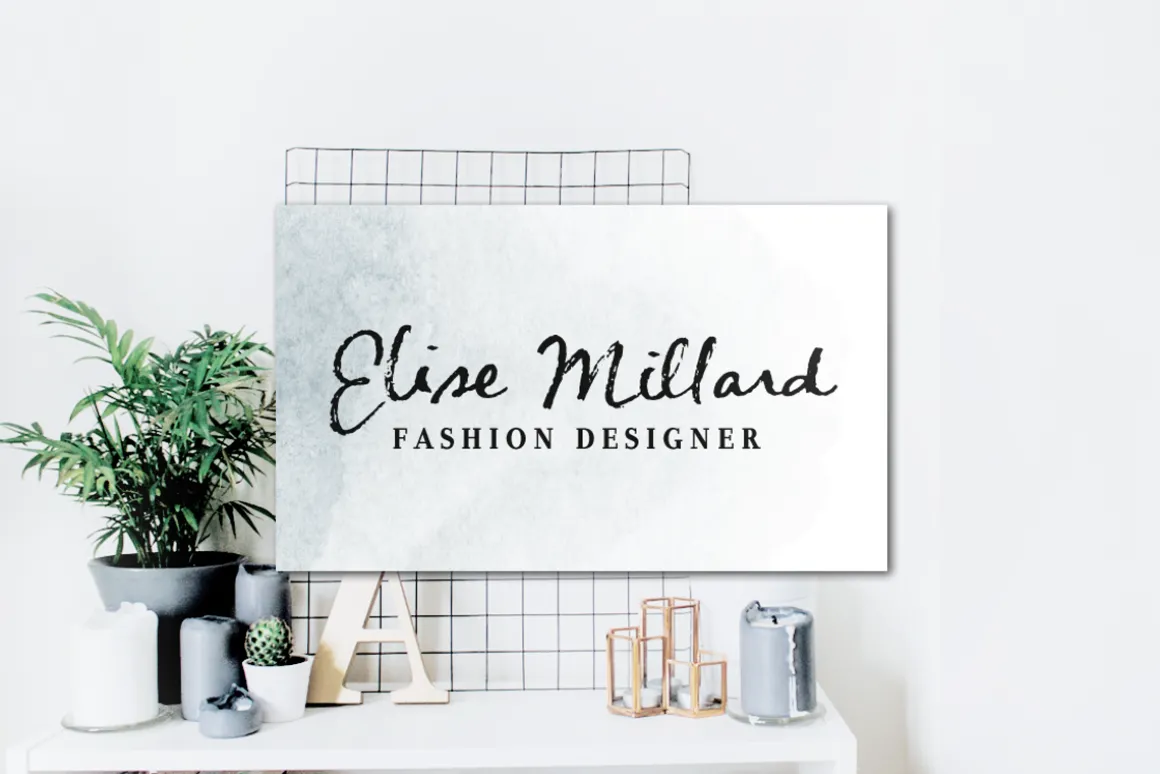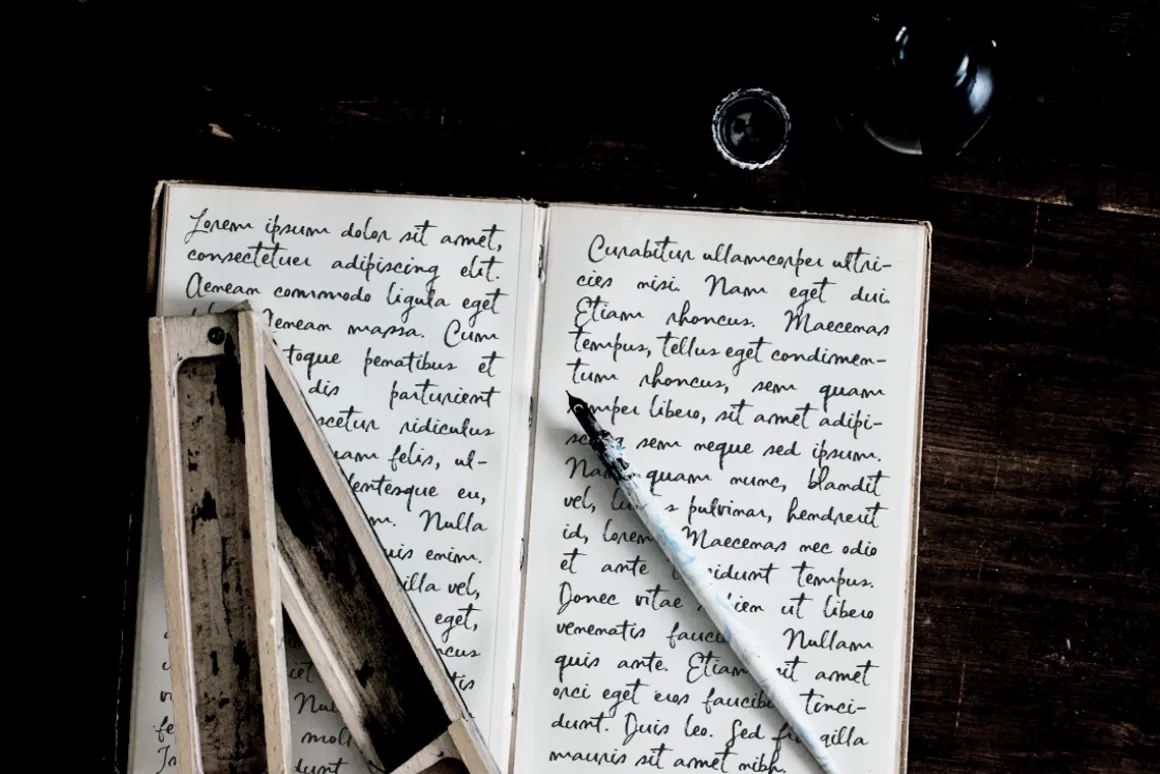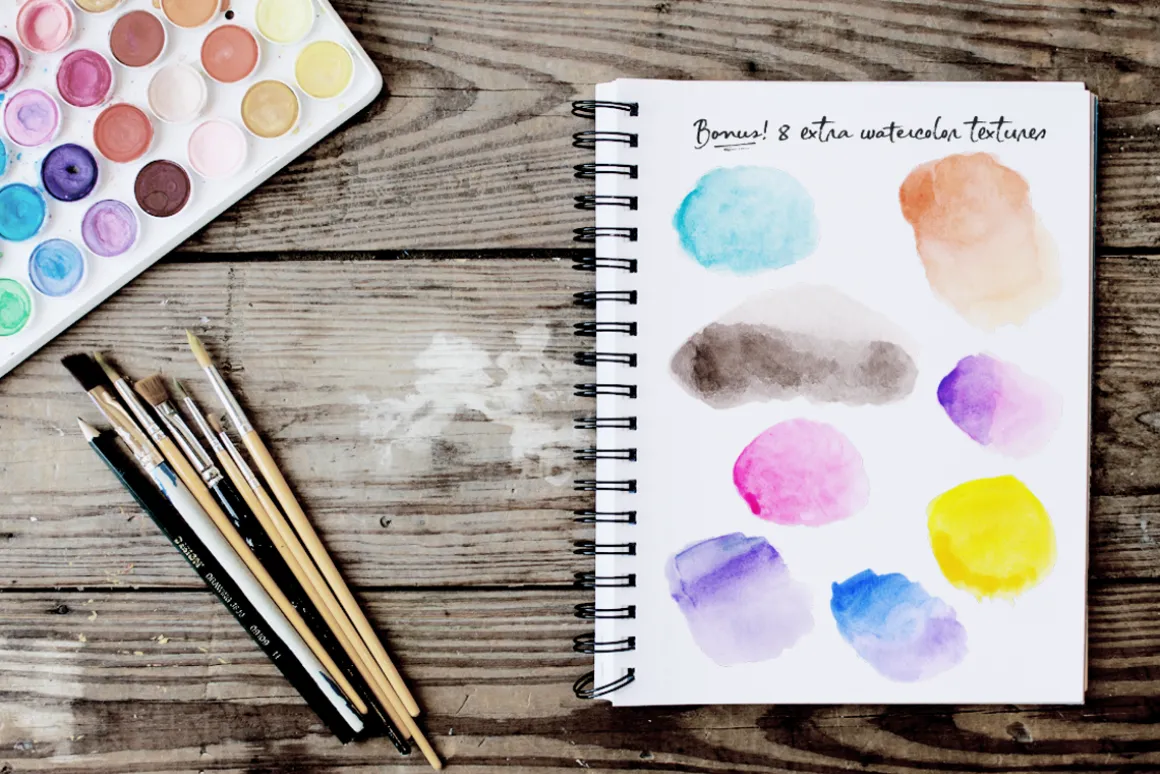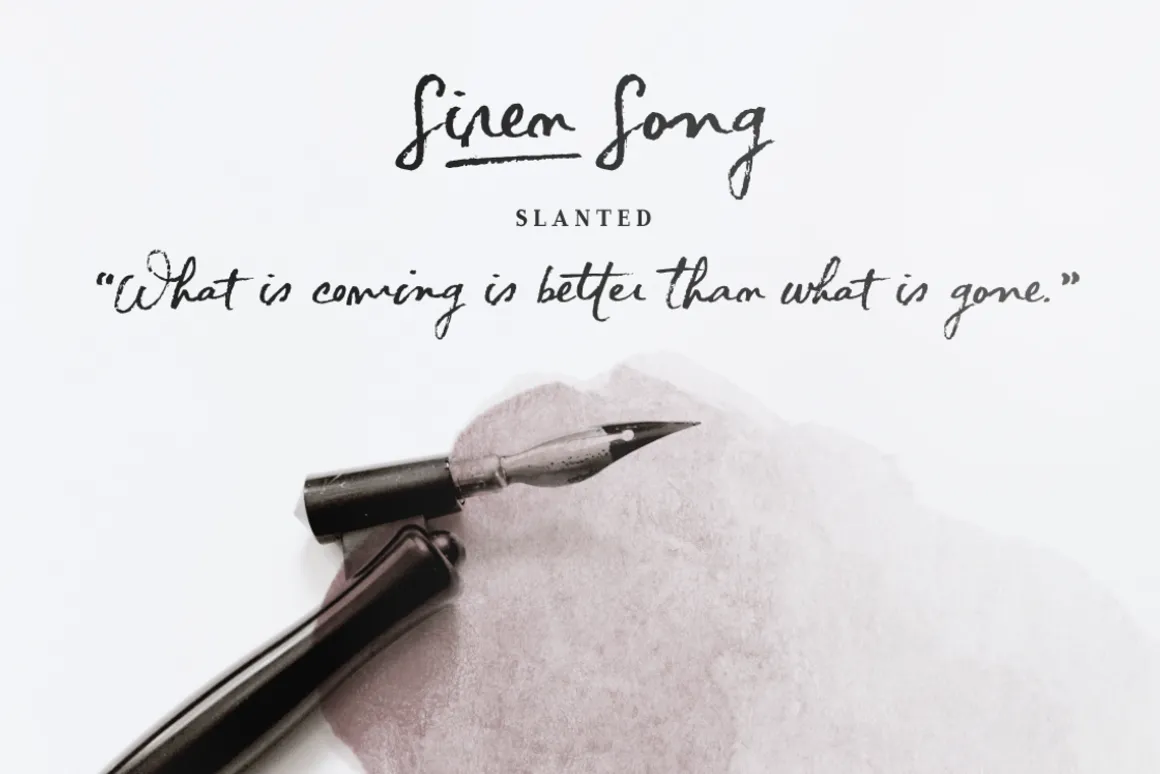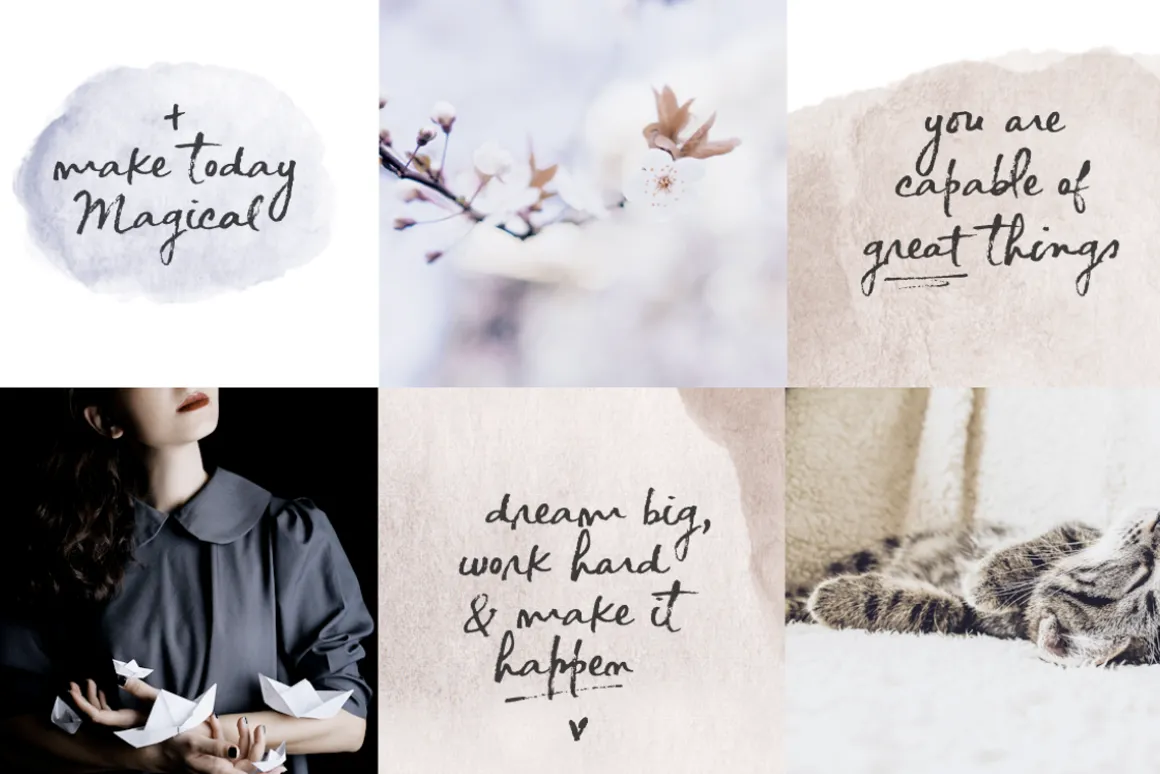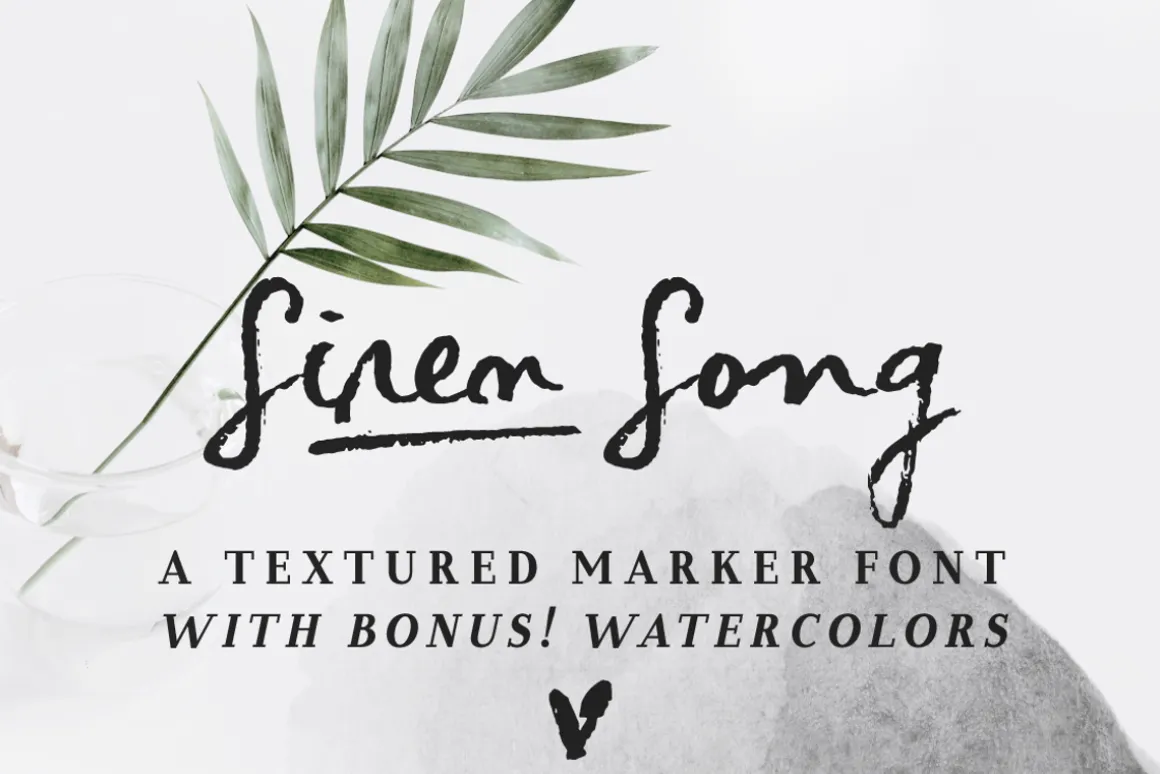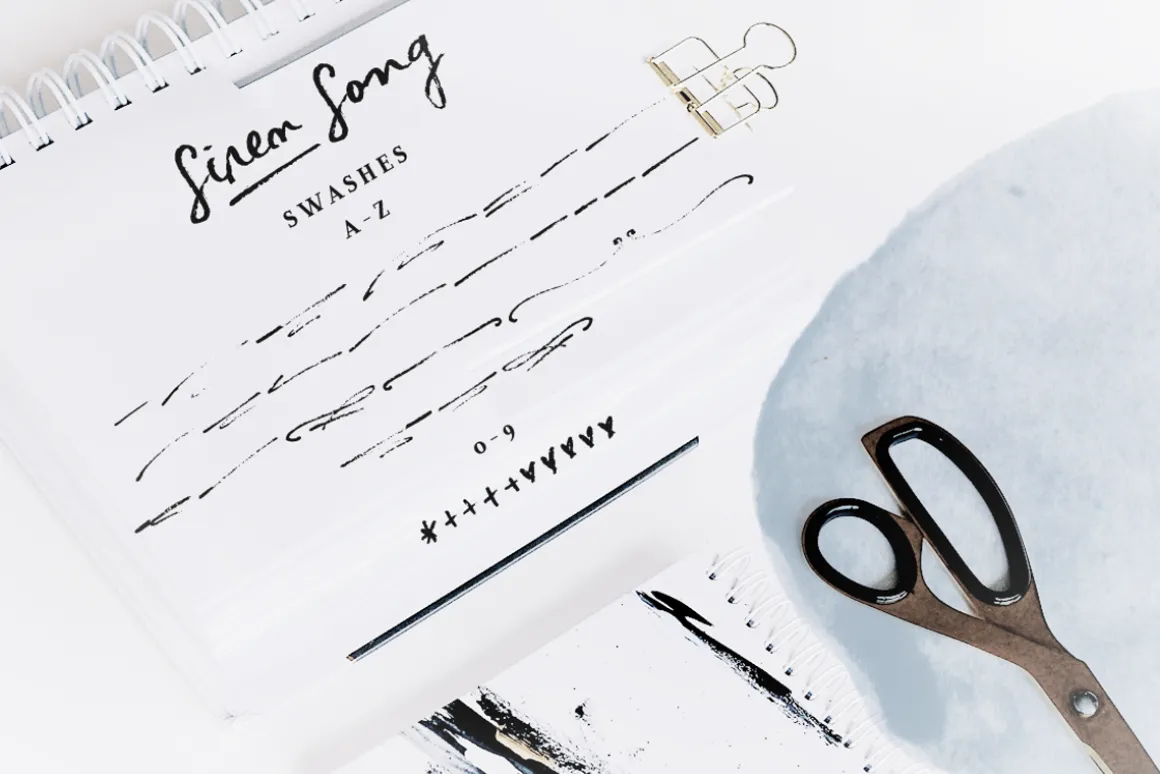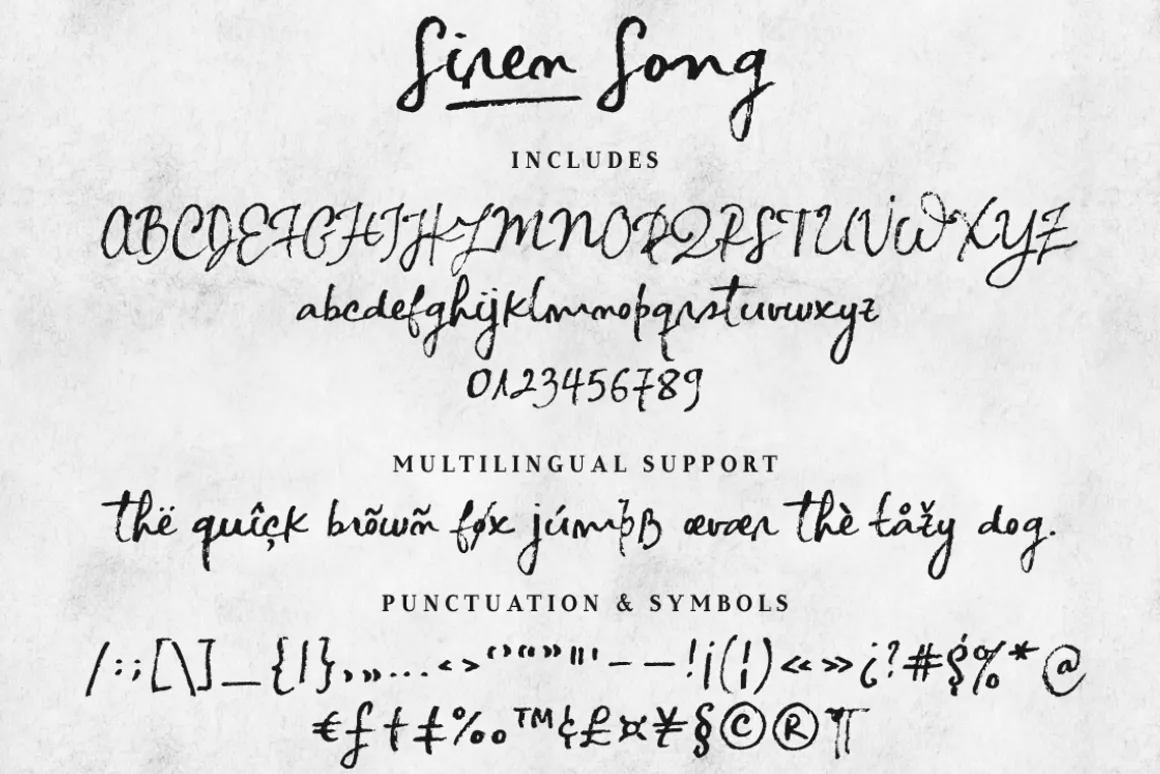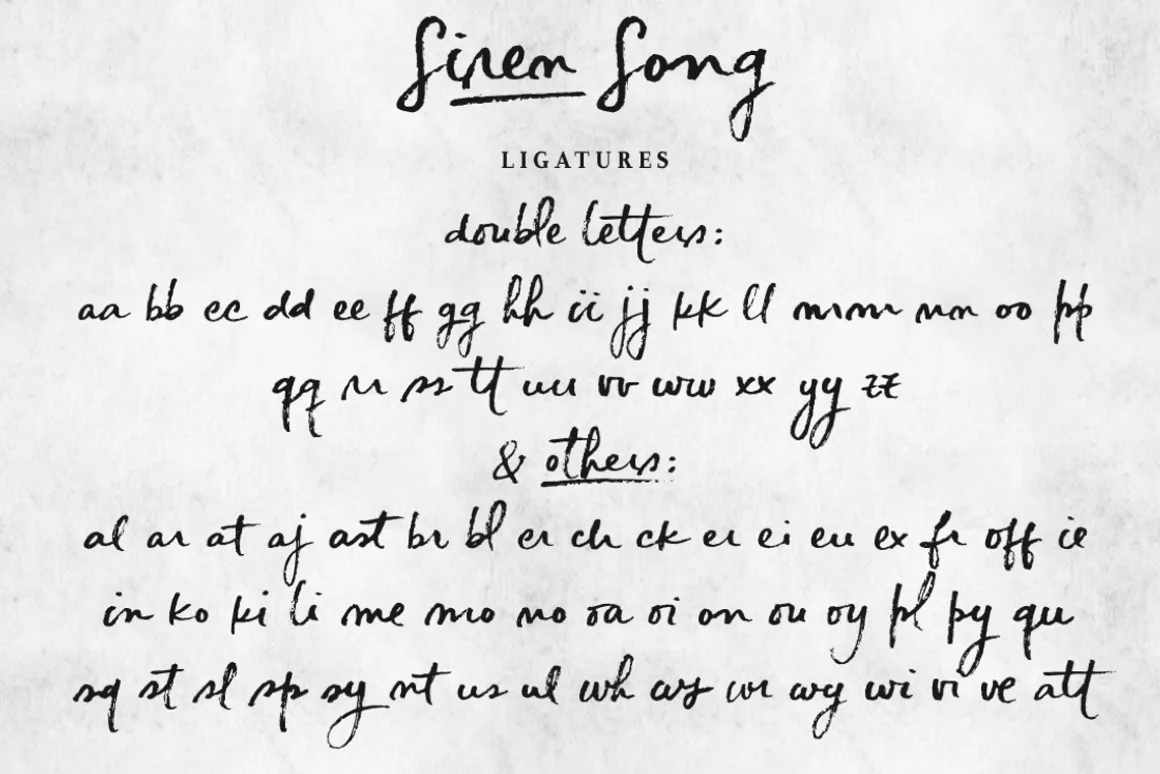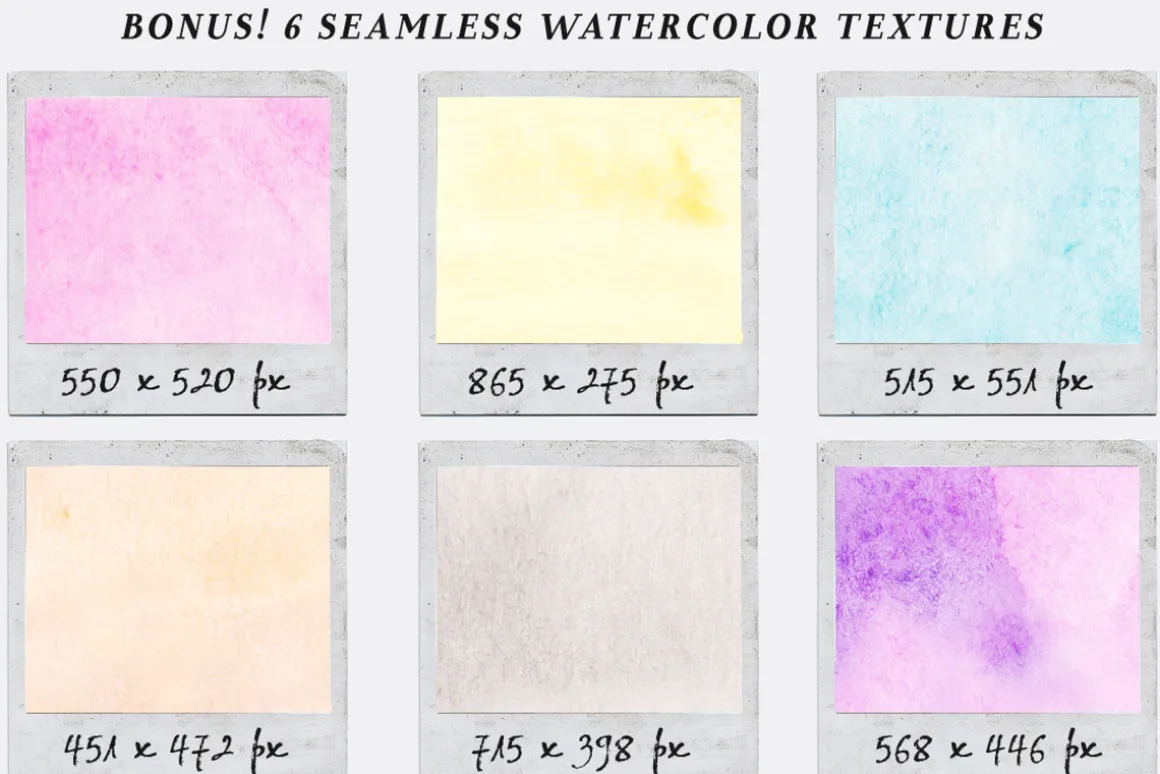
Siren Song is a textured marker font with rough edges and dozens of ligatures that give it a true handwritten feel. It includes both regular and slanted versions of the font, with bonus swashes and watercolor textures that complement it nicely to achieve eye-catching designs.
This handwritten font includes:
- A-Z, a-z, 0-9, accents, punctuation and symbols
- Tons of ligatures, for a more natural handwritten feel
- Contextual Alternates (for b, f, k and s)
- An extra set of 26 swashes (a-z) and 10 symbols (0-9)
- A bonus slanted version, for a more dramatic look
Siren Song is perfect to make a statement and will look great in quotes, logos, titles, postcards, tags.